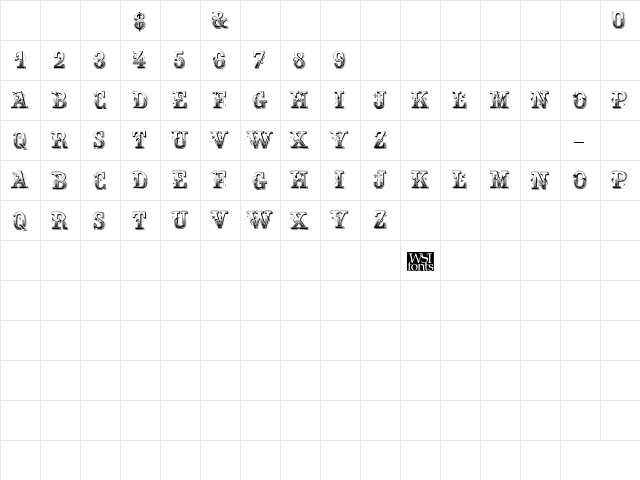
DanceHallCaps Regular Font Preview
DanceHallCaps Regular
Design Context for DanceHallCaps Typeface
DanceHallCaps is a composed and adaptable typeface that performs quietly and consistently across a wide range of design contexts.